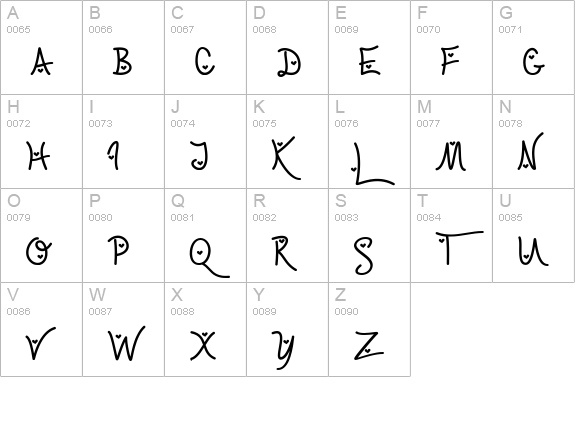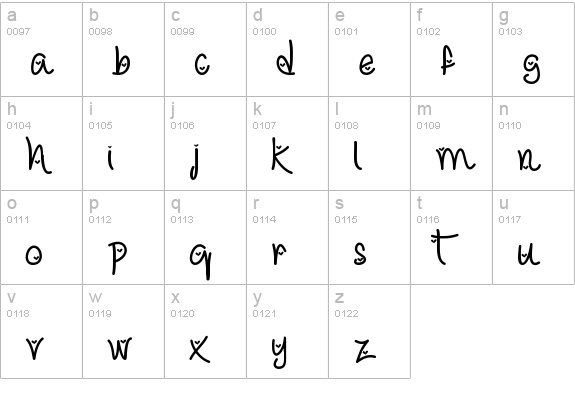
Love & Trust (Hearted) Font Details
Love & Trust (Hearted) is a beautifully crafted font that exudes warmth, affection, and reliability. Its elegant and flowing design captures the essence of love and trust, making it perfect for a wide range of creative projects. Whether you're designing wedding invitations, love notes, or heartfelt messages, this font will add a touch of romance and sincerity. What sets Love & Trust (Hearted) apart is that it is not only visually appealing but also freely available to download. Yes, you read that right - this incredible font can be yours without any cost. Simply head over to FontsMarket.com and indulge in the joy of creativity with Love & Trust (Hearted). With its smooth curves and delicate strokes, Love & Trust (Hearted) will bring your words to life and create a lasting impact on the reader. Its versatility allows it to be used in various design projects, from branding and logos to social media graphics and posters. The font's timeless appeal ensures that it will remain relevant and captivating, no matter the trends. Love & Trust (Hearted) is a true testament to the power of love and trust in our lives. Its gentle and inviting demeanor instantly creates a connection with the audience, evoking emotions of warmth and sincerity. Let this font be the voice of your heartfelt messages and the embodiment of your creative endeavors. Don't miss the opportunity to experience the magic of Love & Trust (Hearted) for yourself. Visit FontsMarket.com today and download this remarkable font without any restrictions. Embrace the beauty of love and trust in your designs and watch as they effortlessly captivate and inspire.